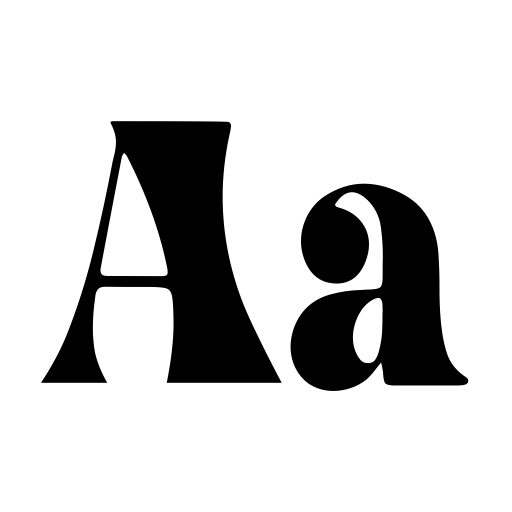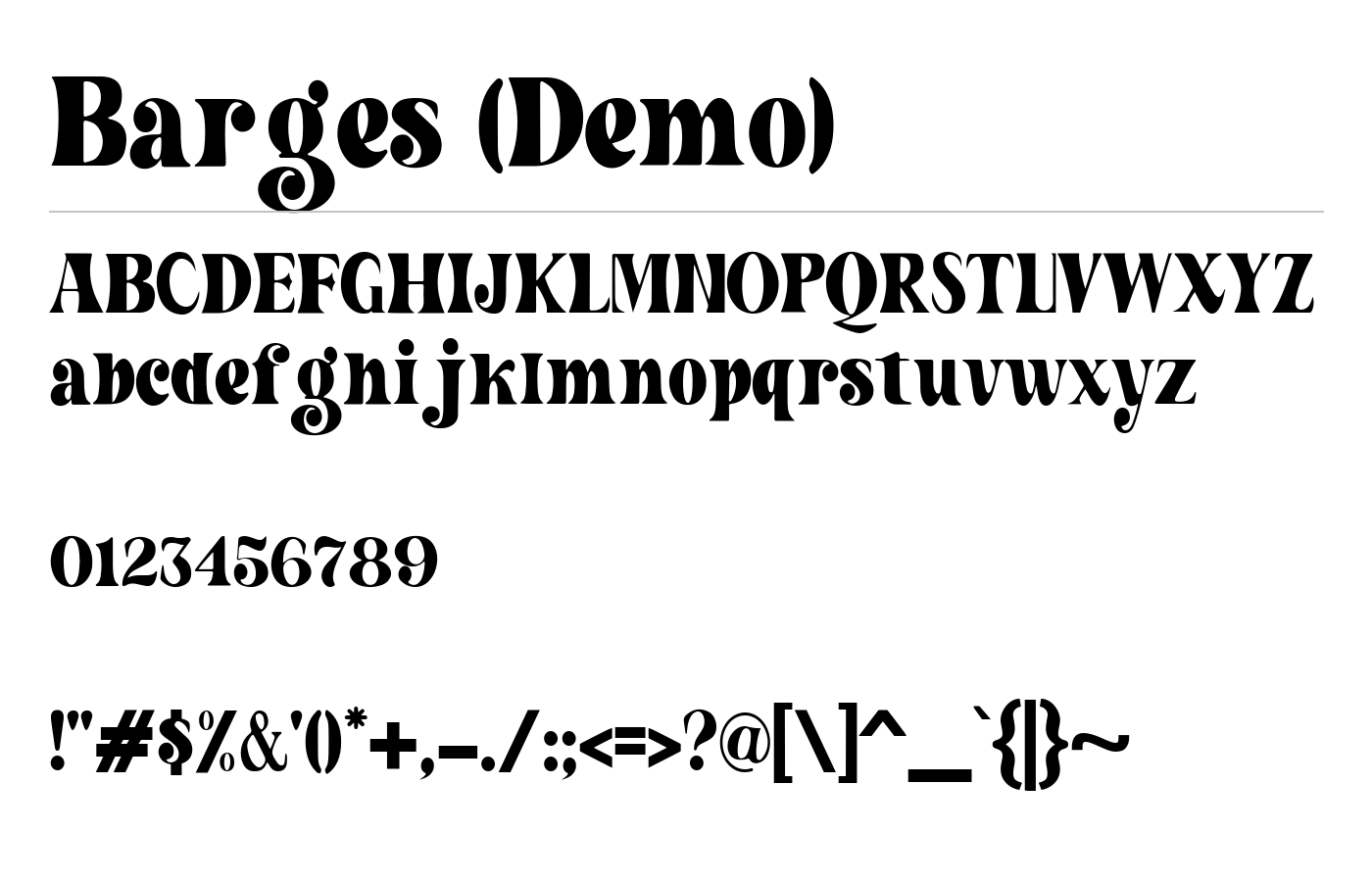
Barges (Demo) is a bold, serif display font with a striking contrast between thick and thin strokes that gives it a dramatic and vintage flair. Its distinctive shapes, such as the curled tail on the lowercase 'g' and the sharp, bracketed serifs, make it ideal for eye-catching headlines, logos, and branding that seeks to convey elegance and character. This font excels in settings where a strong, stylish impression is needed, particularly in editorial design and luxury packaging.
Barges (Demo) Font
About Barges (Demo) Font
| Font family | Barges (Demo) Font |
| Designer | Wildan Suprian Syah |